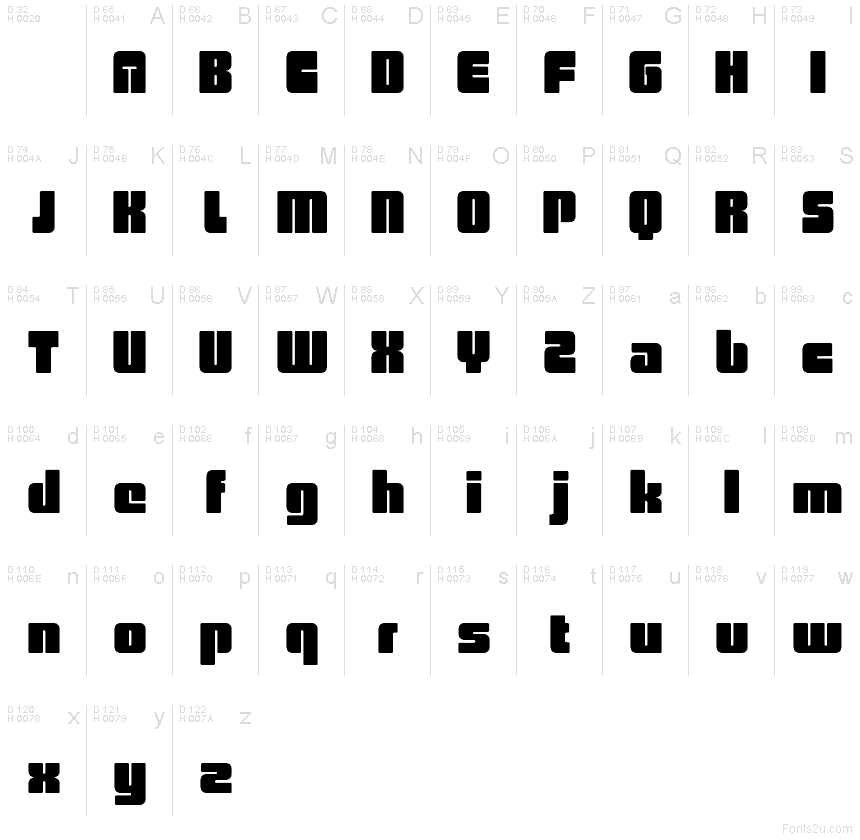
CS Aftone Regular Demo
CS Aftone font is a bold, retro display free font by Craft Supply Co. that features a slight futuristic theme in the uniform characters. Inspired by geometric shapes like cubics and circles, the typeface easily catches attention when used on store banners, book covers, or similar cases.
Let CS Aftone add its visual taste to your magazine titles and headlines. It also combines well with logos presented on delivery boxes, sportswear uniforms as team names, sneakers packaging kits, portfolios’ cover pages as part of universities’ graduation projects. The possibilities are actually endless!